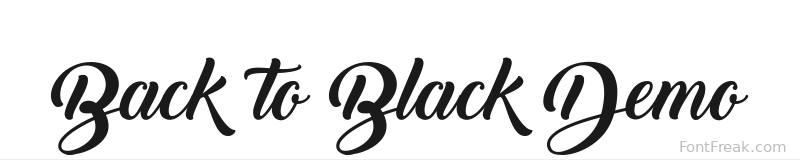
Back to Black Demo
Back to Black Bold Demo
The Back to Black Demo font by Misti Hammers is a captivating script typeface that effortlessly blends elegance with contemporary flair. This font showcases a bold stroke weight, giving it a strong presence while maintaining an inviting and fluid style. The graceful curves and sweeping ascenders lend a dynamic feel, making it visually appealing for various design applications. The spacing is thoughtfully balanced, allowing for clarity and readability even at larger sizes, which enhances its versatility.
This font is particularly well-suited for a range of creative projects. It shines in wedding invitations, where its romantic script adds a touch of sophistication. Additionally, it works beautifully on movie posters, lending a dramatic flair that captures attention. For restaurant menus, the Back to Black Demo font can elevate the dining experience with its stylish appearance, making dish names stand out. Content creators will also find it useful for branding, social media graphics, and promotional materials, where the font’s boldness can convey a strong message.
The target audience for this font includes graphic designers, small business owners, and content creators who seek to make a statement with their visual content. Its ability to blend boldness with elegance makes it an ideal choice for those looking to add a touch of personality to their designs.
In conclusion, the Back to Black Demo font stands out for its unique combination of boldness and grace, making it a versatile option for various design needs. With its free download availability, this font offers an excellent opportunity for creatives to enhance their projects with a distinctive and stylish typeface.